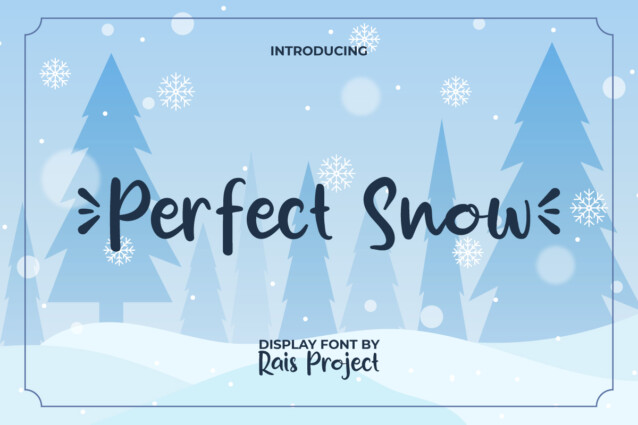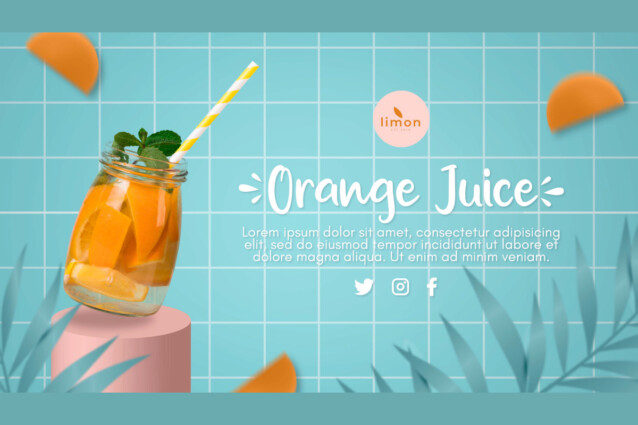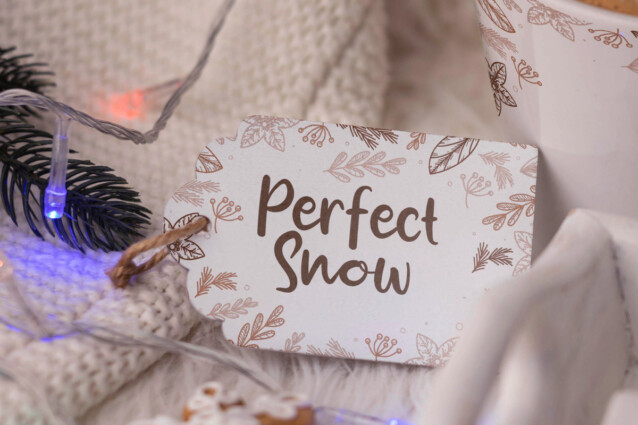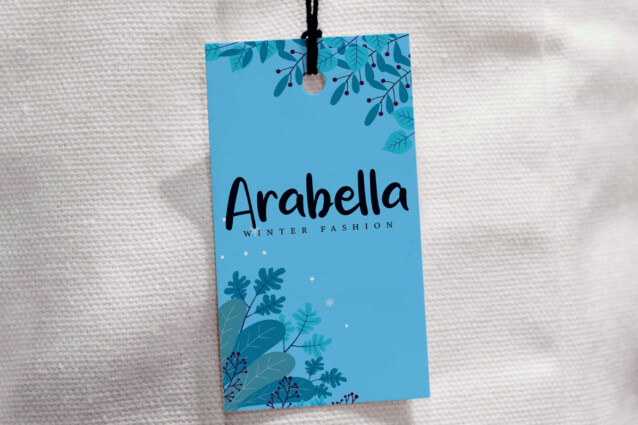
Perfect Snow Font
Perfect Snow Font is an adorable playful holiday script font with casual style. This font can add a sweet touch to any design you make and make it look natural! It will be good for any designs, such as calendar, label, invitation, greeting card, brand image, cover, poster, custom design, product packaging, quote, web, and more!